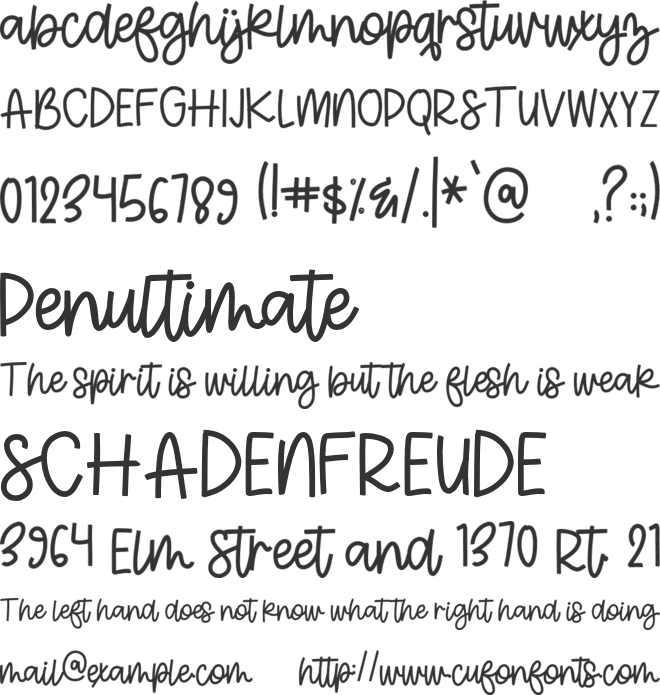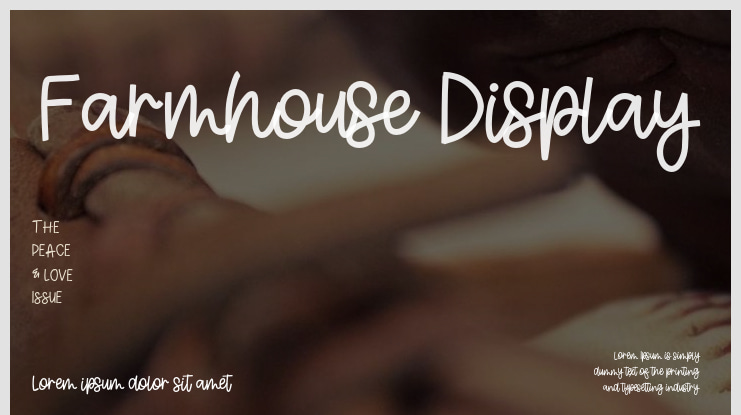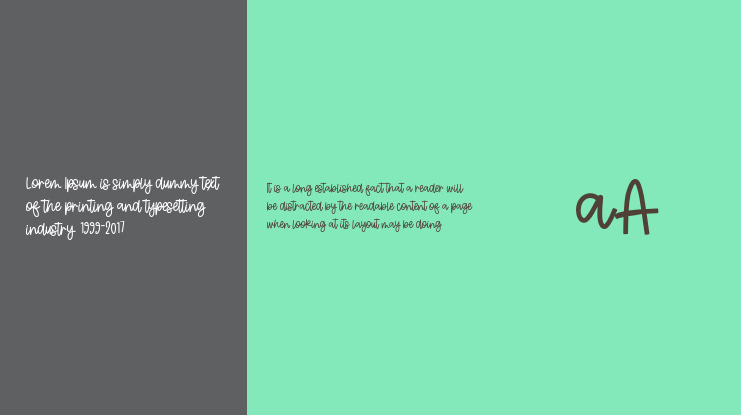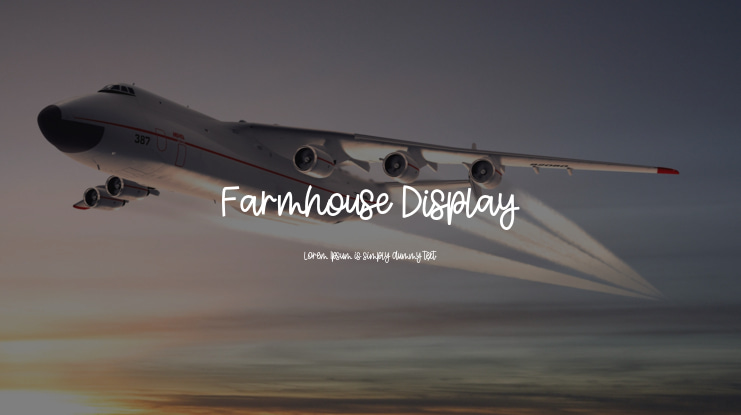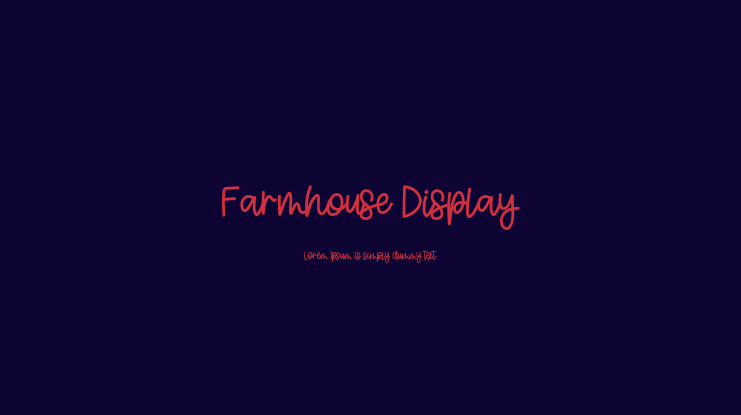
Farmhouse Display Font
DETAILSspecial creative products for you, our products will give you an extraordinary experience.the latest style letters are perfect for wall displays, wedding invitations, social media post logos,advertisements, product packaging, product designs, labels, photography, watermarks, invitations, stationery,and any project that requires taste handwriting.Links for license and contact:================================================== =========https://www.creativefabrica.com/product/farmhouse-display/ref/399088/gmail : ================================================== =========ATTENTION:WARNING!!!By installing or using this font, you agree to the Product Use Agreement:- This font has a FULL VERSION and is ONLY for PERSONAL USE. NO COMMERCIAL USE!- If you need CUSTOM PERMIT or COMPANY PERMIT please go to : ()- Any donations are greatly appreciated. Paypal account for donations:   More...(paypal.me/alfarisix)USE OF COMMERCIAL FONT WITHOUT PURCHASE OF LICENSEOFFICIAL  will be fined $3000 LICENSE FEES FROM THE LICENSE PRICE !!!!thanks.